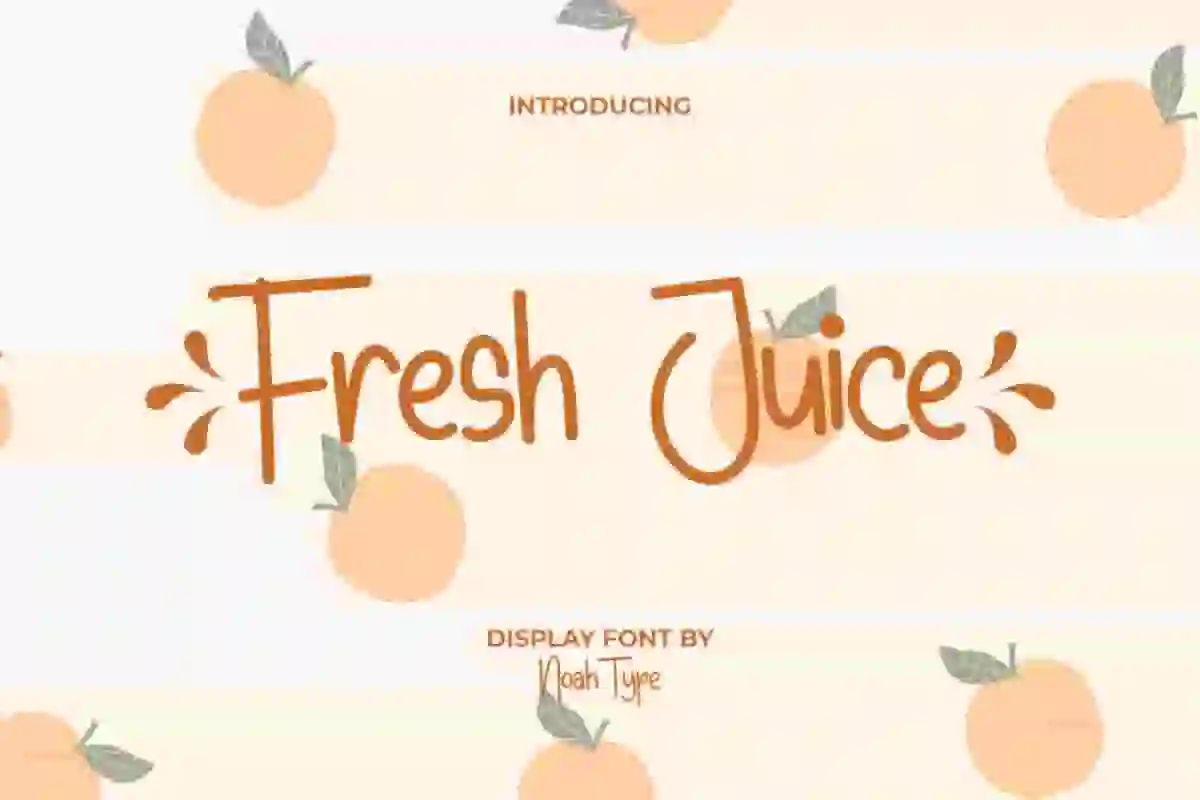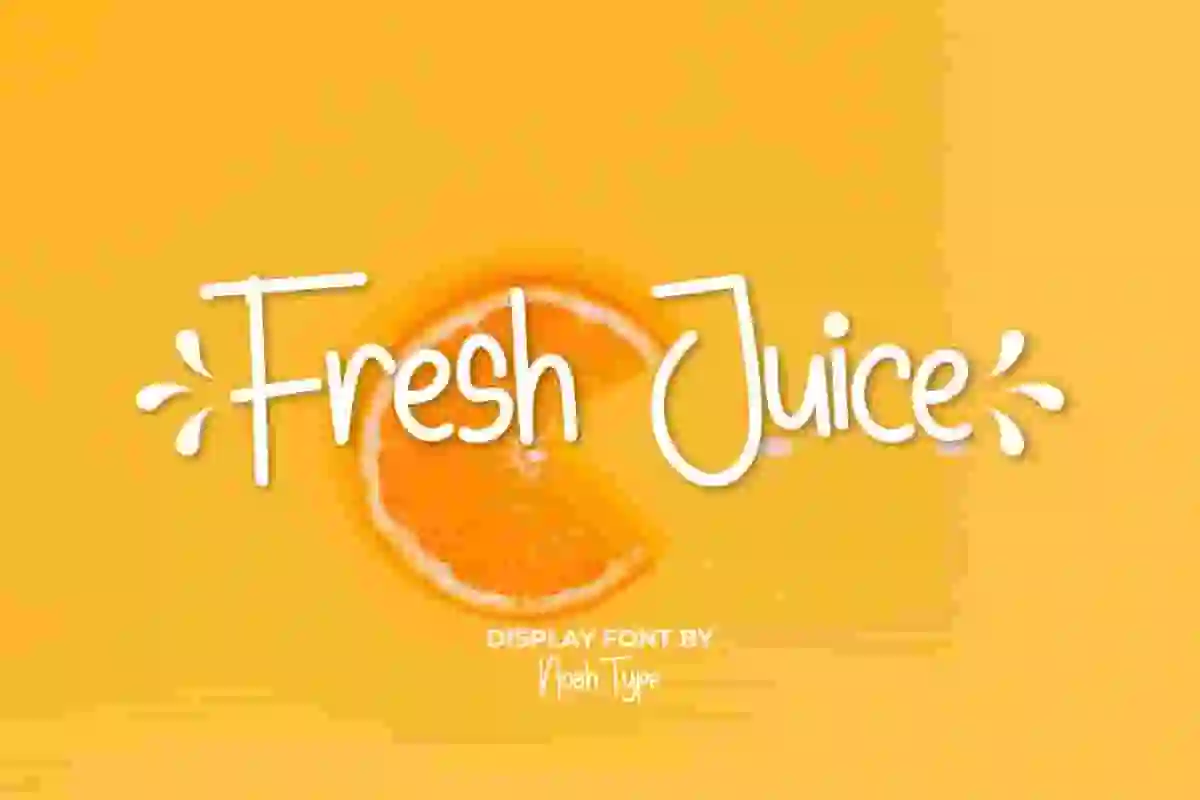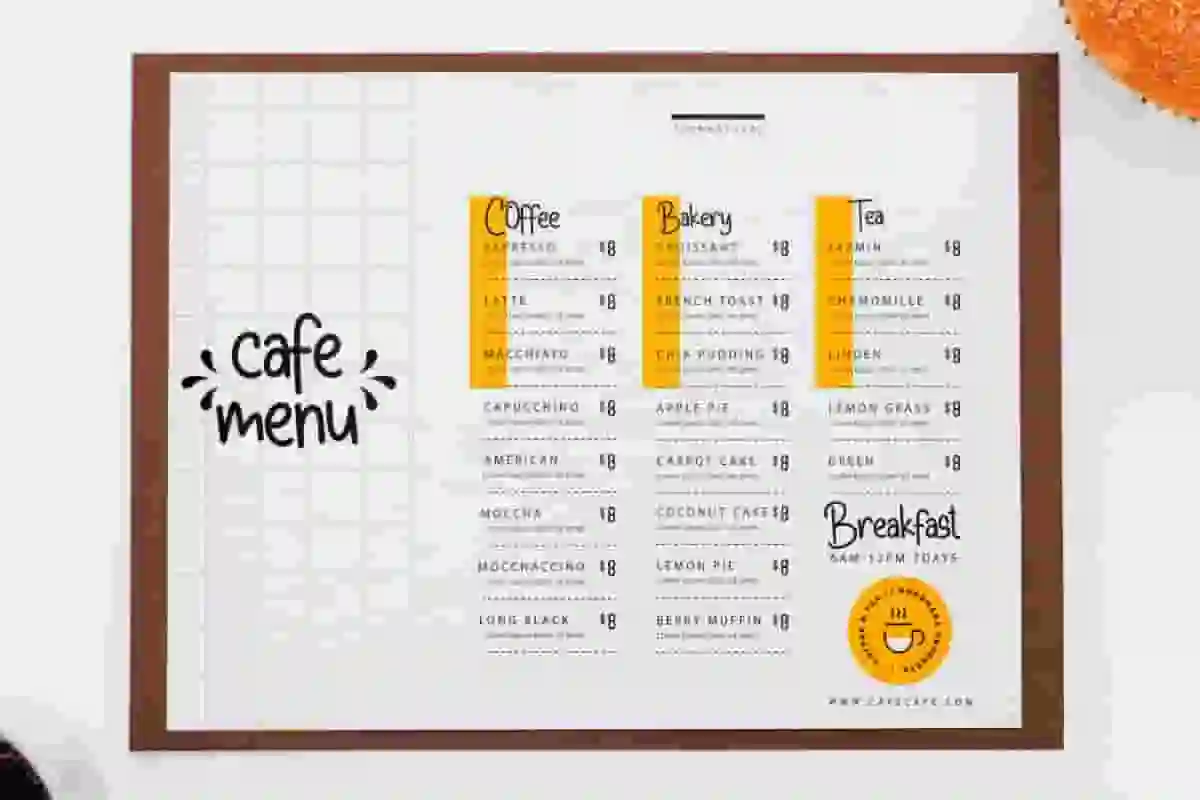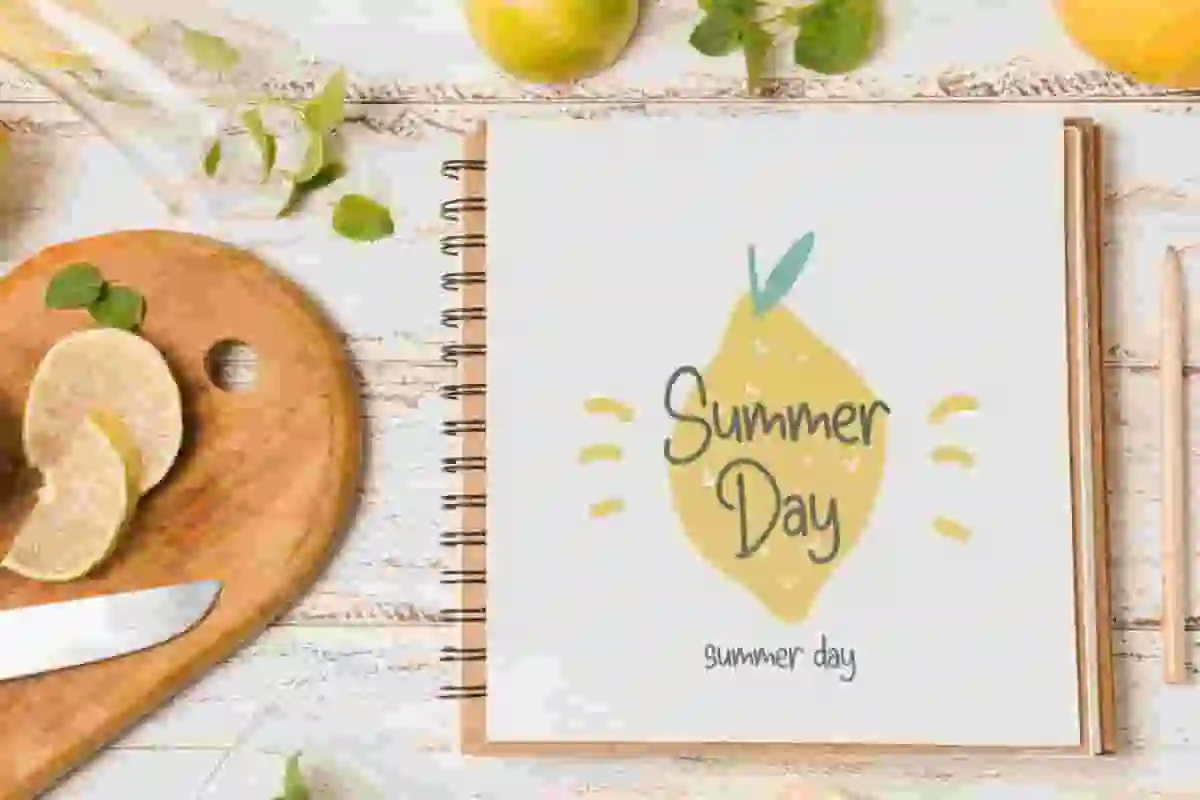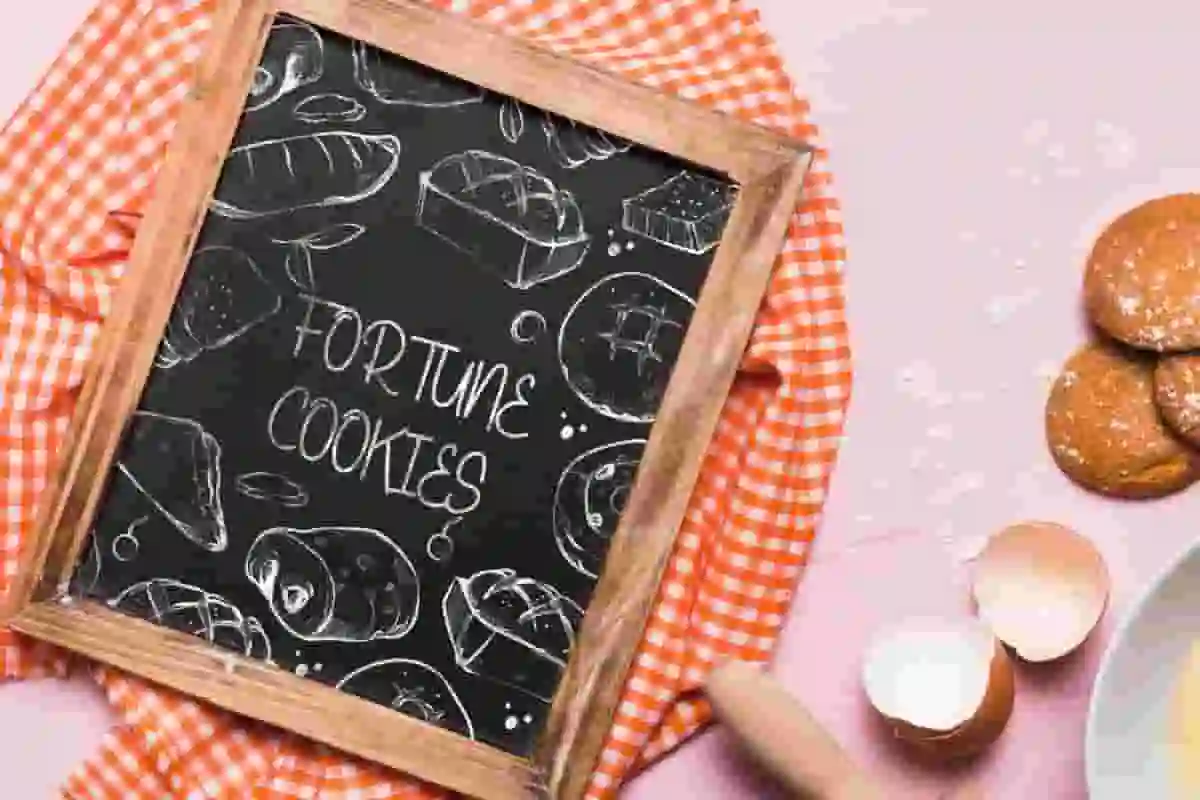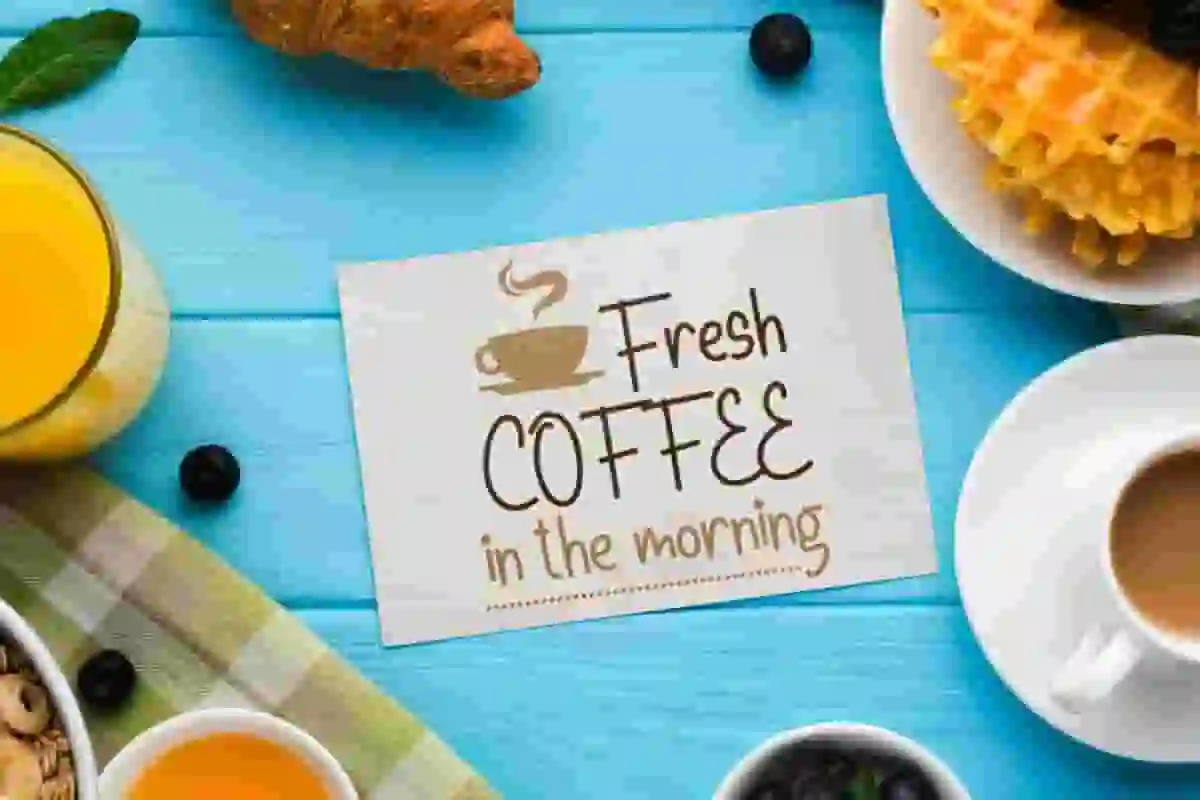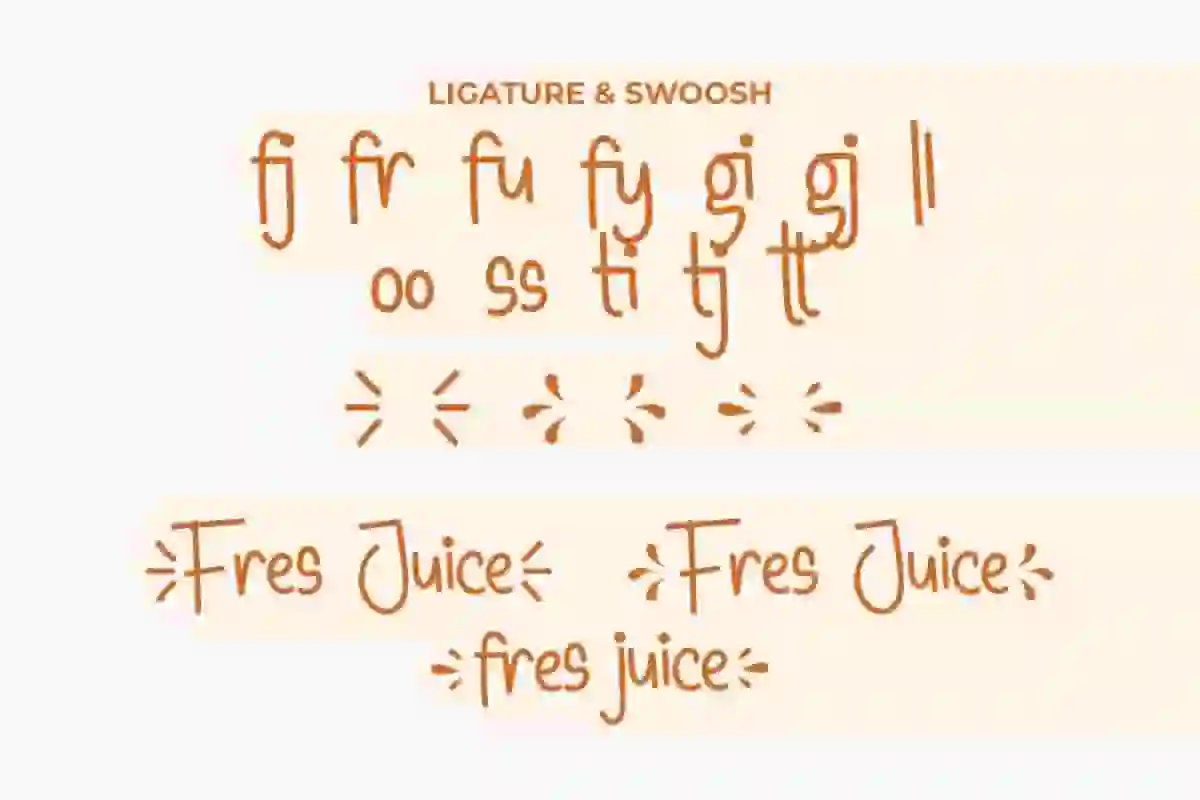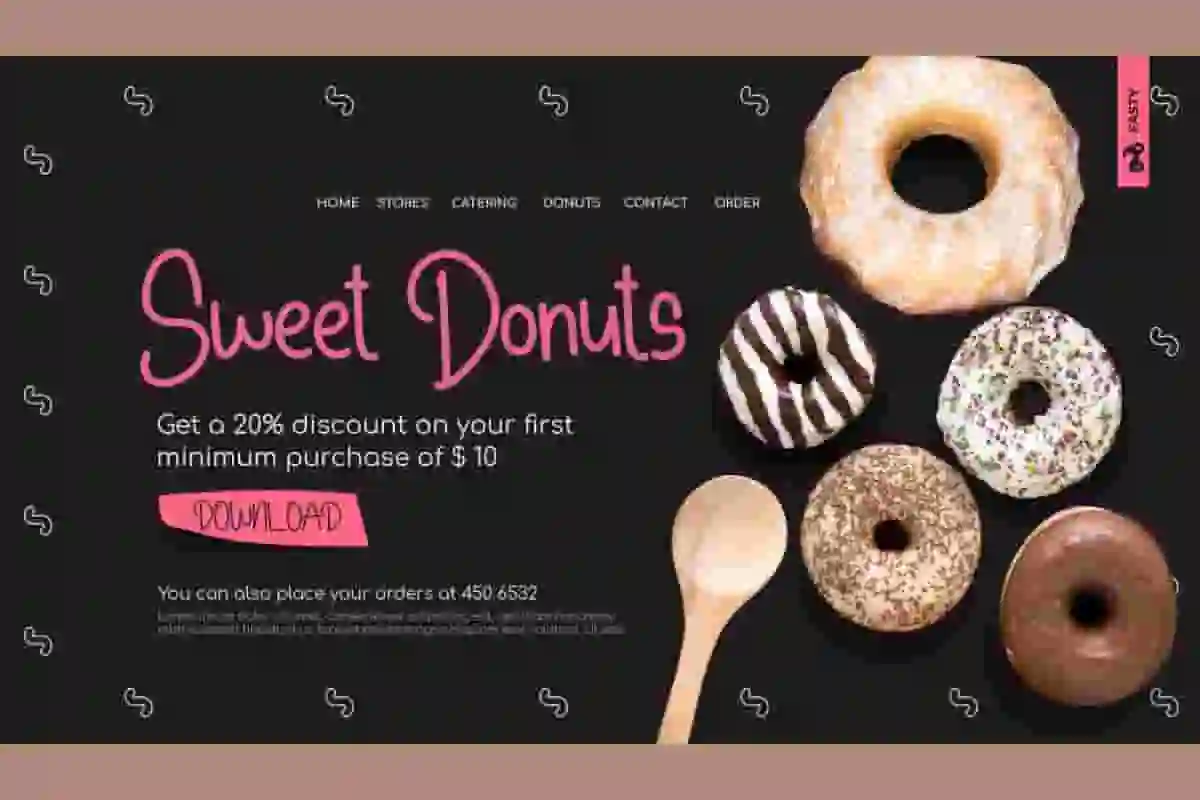
Fresh Juice is a display handwritten font with monoline style, inspired from fresh food and snacks packaging. This simple handwritten font that can be used for all printed writing materials, product designs, social media. Its appearance will add a creative and realistic impression to any of your products that require a classic style
Fresh Juice Font includes full set of Uppercase and Lowercase Basic Characters, Numerals and Punctuation. This font also has additional characters that will blow your mind
Bring a splash of fun, color, and creativity to your projects with Fresh Juice Display Font – a vibrant and cheerful typeface designed to make your words pop! Inspired by the freshness of tropical drinks and the liveliness of summer, this display font is perfect for creating bold and eye-catching designs that instantly grab attention.
Fresh Juice Display Font combines playful curves, bold shapes, and a unique hand-crafted style that radiates joy. Whether you’re working on branding, packaging, posters, event promotions, or social media graphics, this font adds a refreshing twist that will make your audience smile. Its friendly and approachable design is ideal for projects that aim to communicate energy, positivity, and creativity.